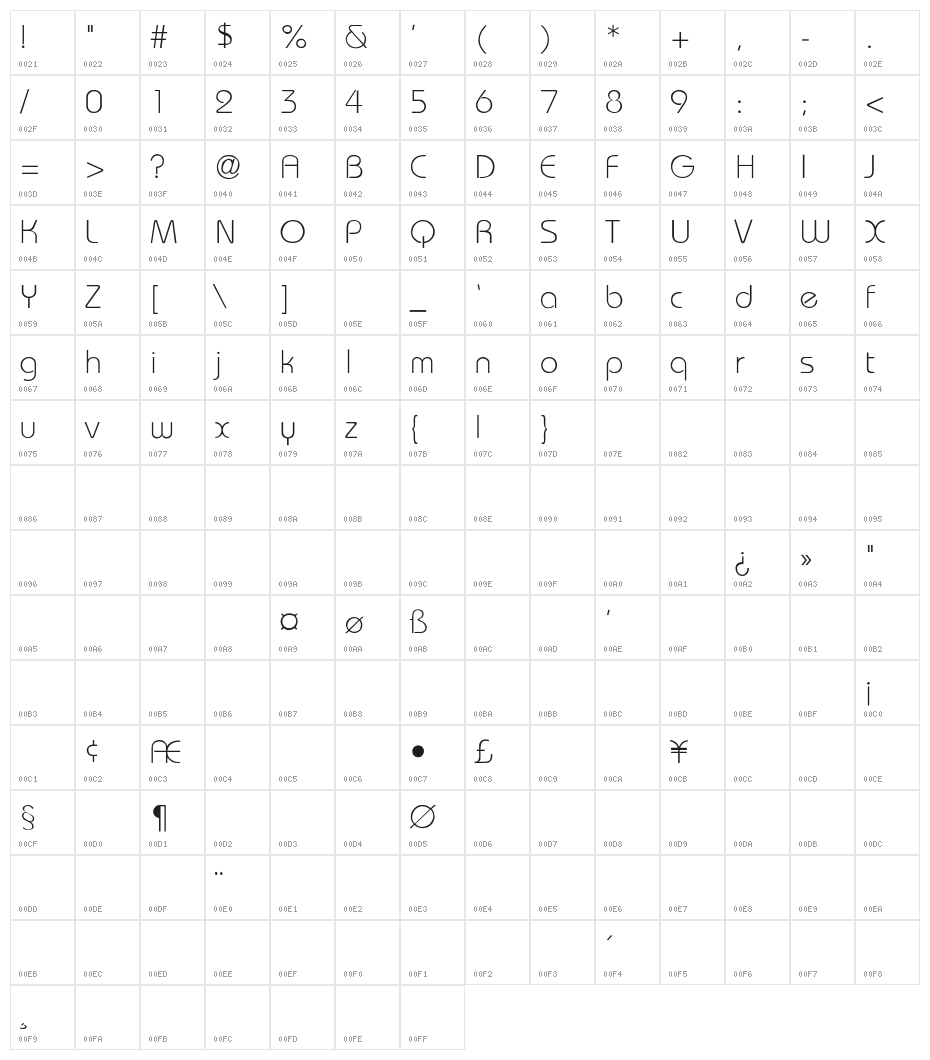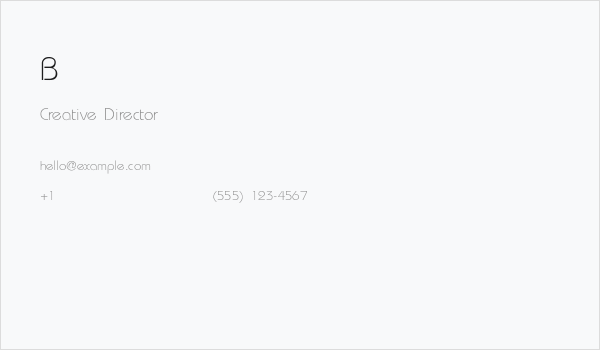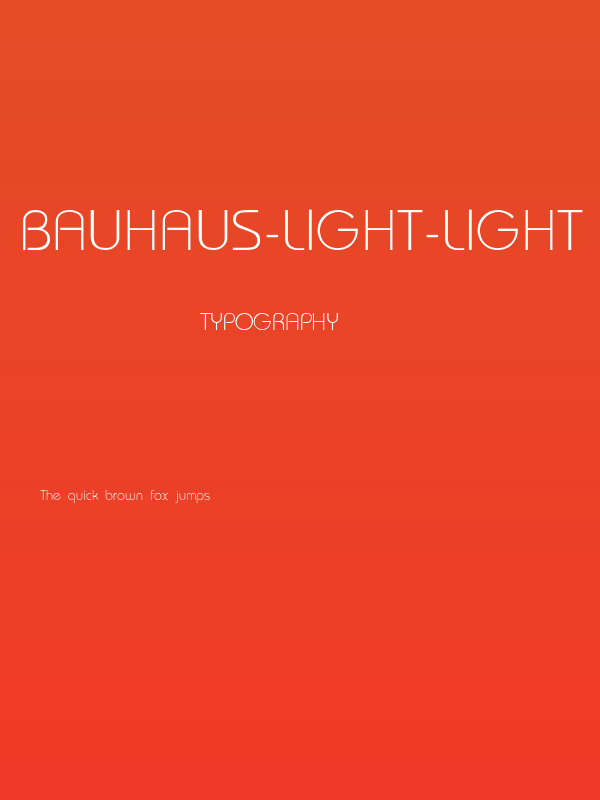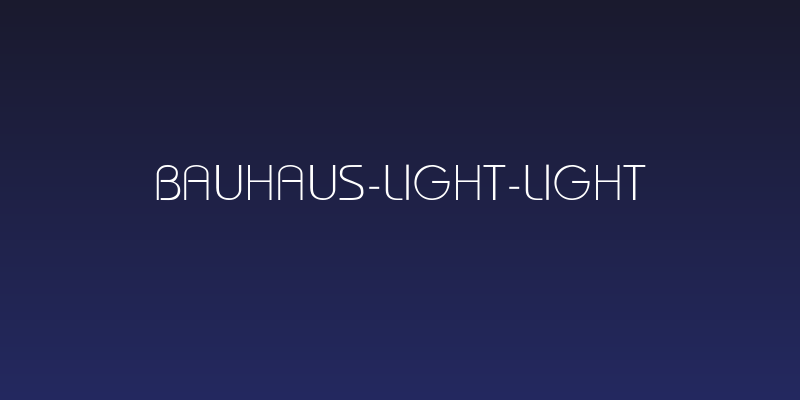
Bauhaus-Light-Light Font
Bauhaus-Light-Light Description
This font embodies a clean and geometric aesthetic, characterized by its minimalist and modern design. The letterforms are constructed with precise, circular shapes and straight lines, creating a harmonious balance between form and function. The uppercase and lowercase letters maintain a consistent stroke width, contributing to a uniform appearance. The numerals and special characters follow the same design principles, ensuring a cohesive look across all elements. The overall style is sleek and uncluttered, making it suitable for contemporary design projects.
| Proposed Projects | Ideal for modern branding, minimalist posters, tech-related designs, and contemporary web interfaces. |